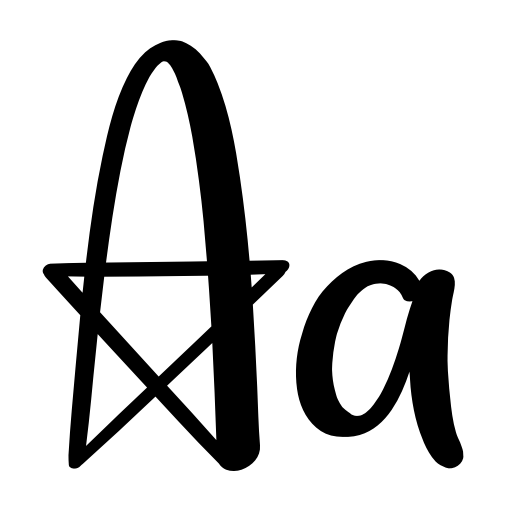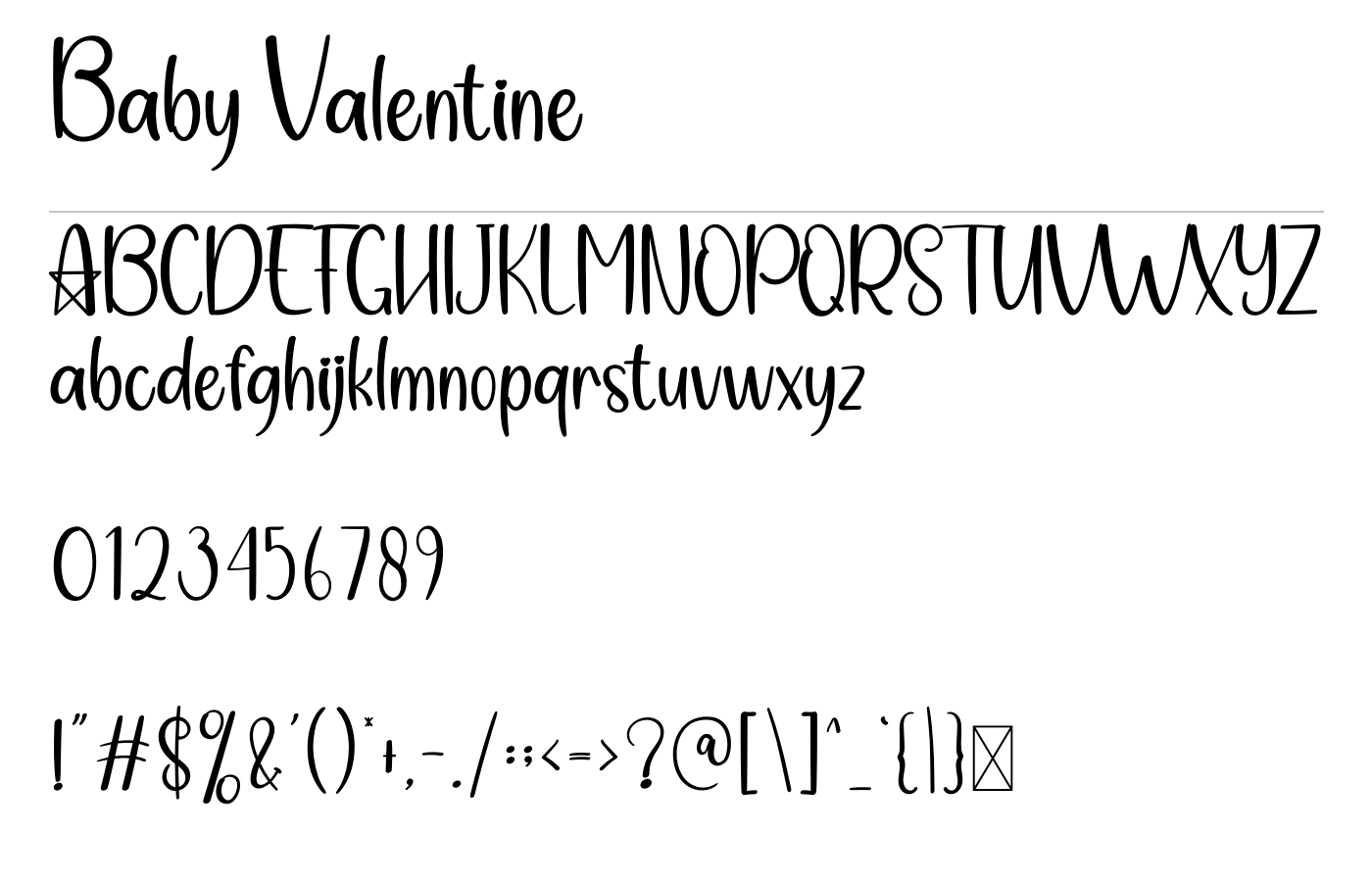
Baby Valentine is a playful and whimsical handwritten font with a light to regular weight and tall, narrow letterforms that give it a friendly, approachable feel. Its casual strokes and lively character shapes make it perfect for fun, informal designs such as invitations, greeting cards, and children’s branding where a charming, personal touch is desired. This font’s unique style shines in headlines and display uses, adding warmth and a joyful personality to any project.
Baby Valentine Font
About Baby Valentine Font